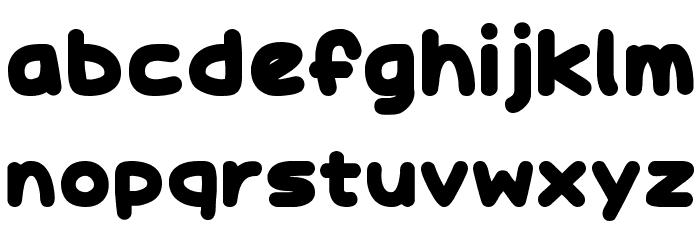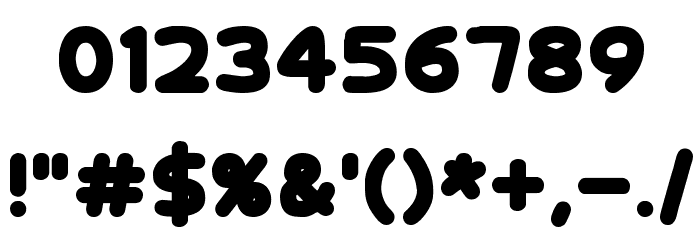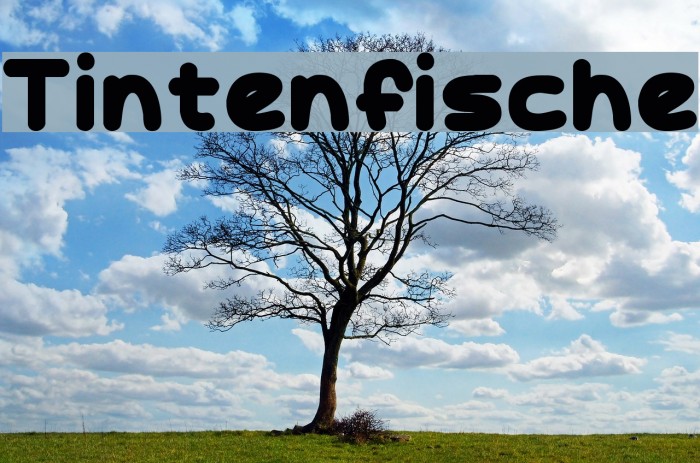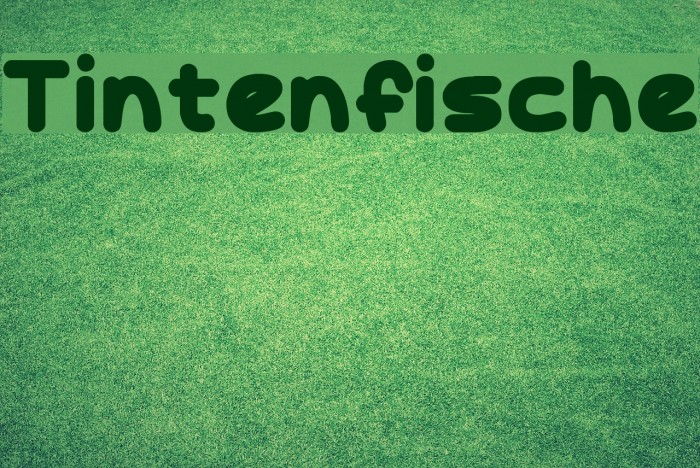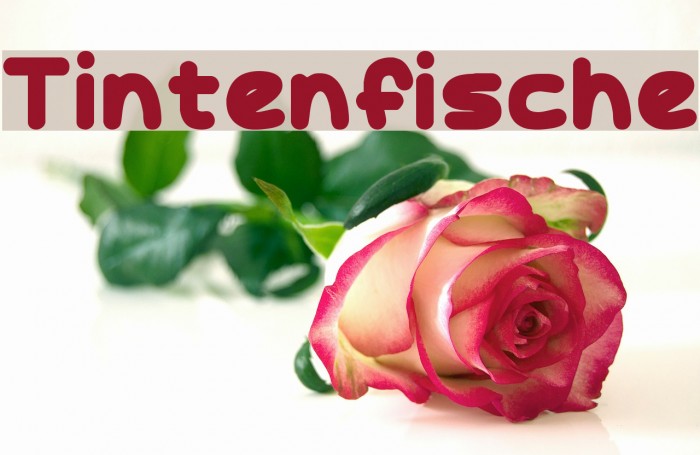
Tintenfische Font
This playful and rounded font exudes a friendly and approachable vibe, characterized by its bold, smooth curves and consistent stroke width. The letters are evenly spaced, providing a clear and legible appearance. Its whimsical style makes it ideal for projects that require a touch of fun and creativity. The uniformity in the design ensures that each character is easily distinguishable, contributing to its readability. The font's boldness is balanced by its soft edges, making it suitable for both digital and print media. Its versatility allows it to be used in a variety of contexts, from children's books to casual branding projects.
A playful, rounded font with bold, smooth curves and consistent stroke width.
- Proposed Projects: Ideal for children's books, playful branding, casual invitations, and creative posters.
- Overall Style: Playful